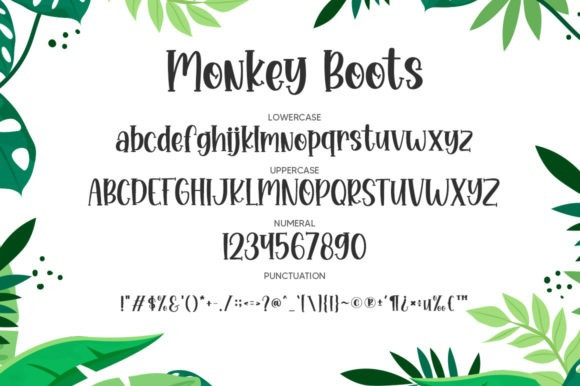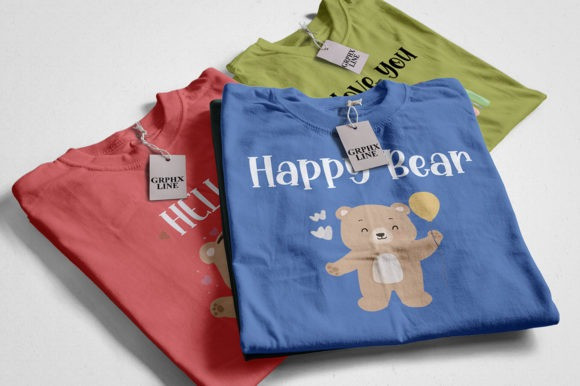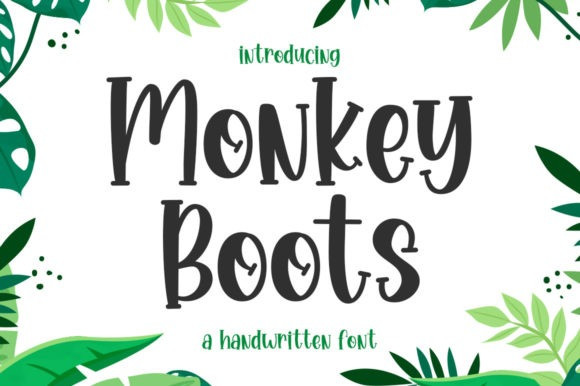
Monkey Boots Font
Monkey Boots Font is a fresh and quirky display font. Whether you’re looking for fonts for Instagram or calligraphy scripts for DIY projects, this font will turn any creative idea into a true piece of art!